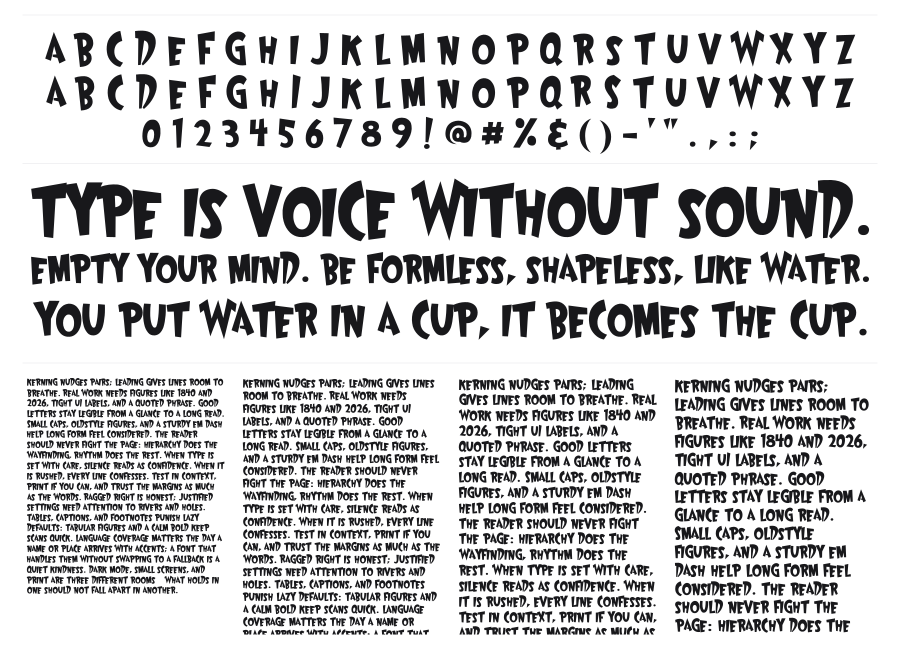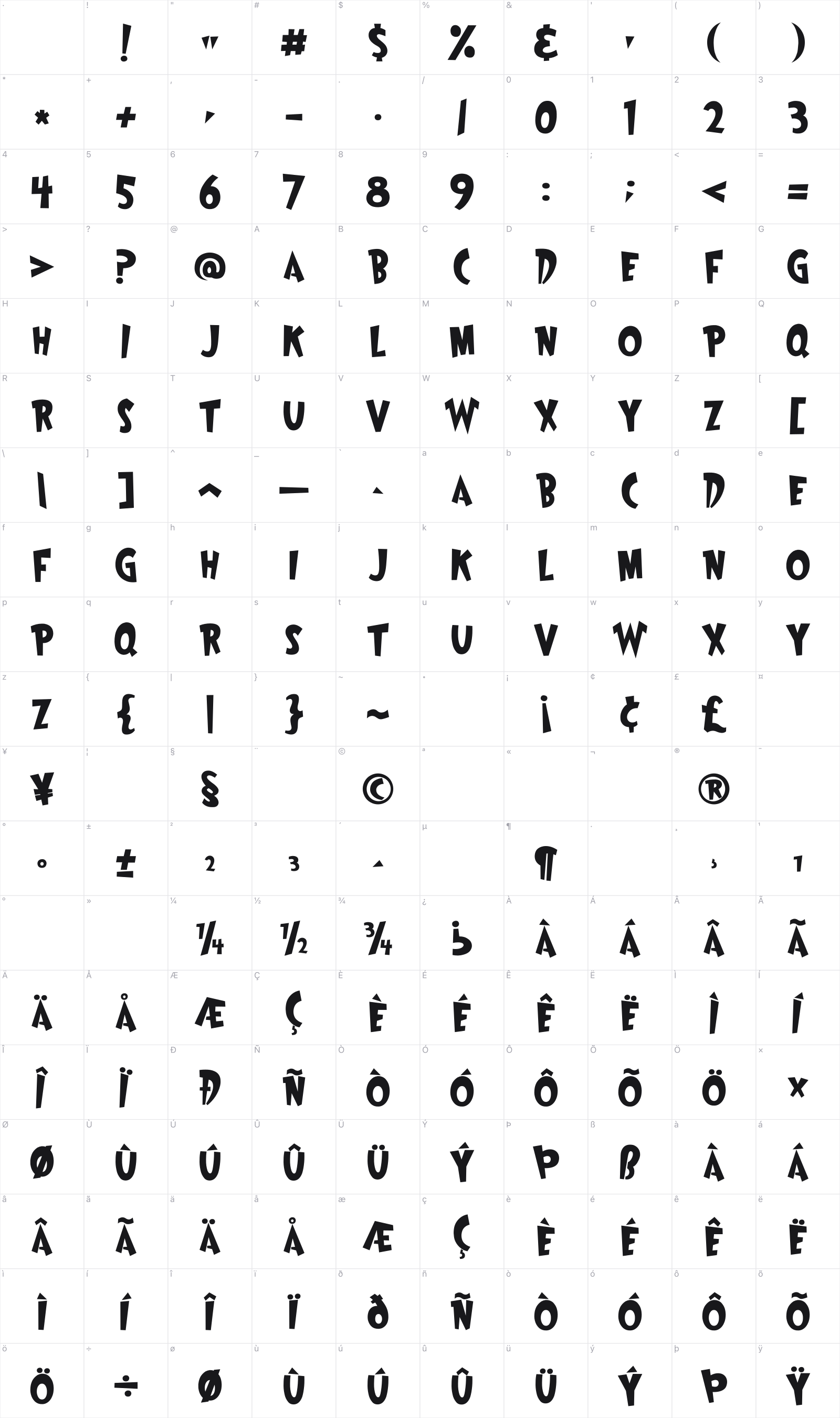
Wayoshi
Wayoshi is a bold, uppercase comic-style face from tymime with thick, slightly wonky letterforms that feel like they belong in a cartoon title card. The heavy weight and playful quirks give each letter a lot of personality, landing somewhere between goofy and confident. Built for headlines, posters, and anything that wants to be loud and fun without looking generic.